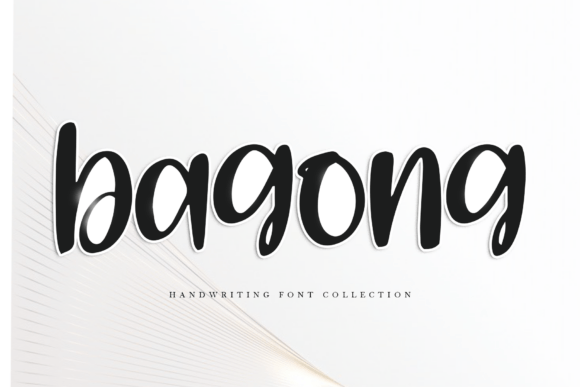
Discover the Timeless Elegance of Bagong Font
There’s nothing quite like the thrill of a blank canvas, waiting for the perfect words to bring it to life. For designers, this moment is a chance to unleash their creativity and make a lasting impression. But sometimes, it’s the smallest details that can elevate a design from good to great. That’s where Bagong Font comes in – a trendy handwritten font that adds a touch of sophistication and class to any project.
Bagong Font is more than just a font – it’s a statement piece that exudes elegance and refinement. With its impeccable form and contemporary atmosphere, it’s the perfect addition to any design project looking to make a lasting impression. Whether you’re a seasoned designer or just starting out, Bagong Font is a valuable tool that will help you take your designs to the next level.
Bagong Font Key Features
- Font Family: Bagong Font is a typeface family that includes 6 weights, ranging from Light to Bold, and an Italic version of each weight.
- Character Set: The font includes a comprehensive character set, supporting multiple languages, including Latin, Cyrillic, and Greek alphabets.
- Unique Characteristics: Bagong Font features a unique blend of modern and traditional design elements, with subtle flair and sophistication, making it ideal for creative and professional projects.
Bagong Font Review
Overall, I think Bagong Font has some great qualities, but also some areas that need improvement. Here are my thoughts:
- Unique style: Bagong Font has a distinct aesthetic that sets it apart from other fonts. Its combination of modern and traditional elements is quite striking.
- Legibility: Despite its unique style, Bagong Font is surprisingly easy to read, even at smaller font sizes.
- Limited font weight options: Bagong Font only comes in a few font weights, which can make it less versatile for certain design projects.
- No italic or oblique versions: If you need to use italic or oblique text in your design, Bagong Font may not be the best choice.
- Some characters may not be perfect: While Bagong Font is generally well-designed, there are a few characters that could use some improvement.
Overall, I think Bagong Font is a solid choice for designers who want a unique, modern font with good legibility. However, its limitations may make it less suitable for more complex design projects.
Tips for Getting the Most Out of Bagong Font
For optimal results, use Bagong Font in headings and titles to create visual hierarchy and emphasis. Pair it with a clean and simple design to showcase its modern and sleek aesthetic.